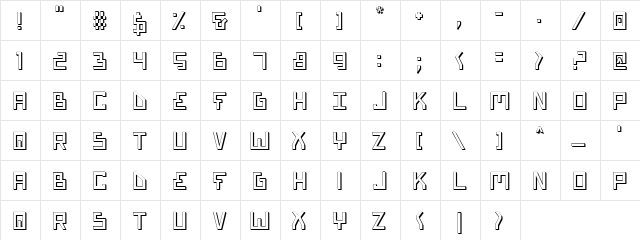
Bionic Type Shadow Shadow
Design Context for Bionic Type Shadow Typeface
Bionic Type Shadow is built around its visual character rather than neutral utility — its distinctive forms are designed to make an impression at display sizes.
Font Pairing: Pair with a clean neutral sans-serif for body copy to let Bionic Type Shadow's character lead without overwhelming the composition.
Pro Tip: Use Bionic Type Shadow exclusively at display sizes — it was designed to be seen, not read at length. Let a neutral companion handle body copy.